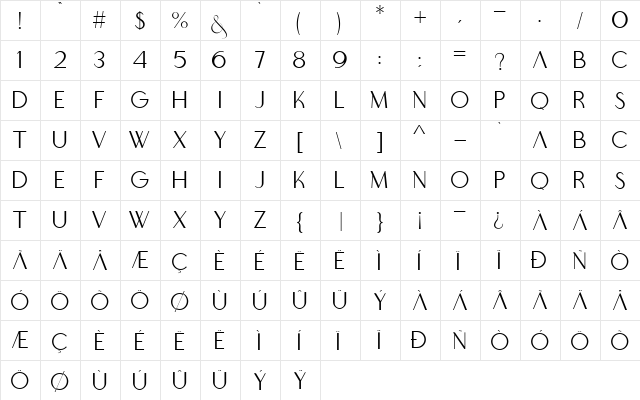
BOOWIE Regular
Design Context for BOOWIE Typeface
BOOWIE takes a measured approach to typography — its balanced proportions and neutral character make it a reliable workhorse for both digital and print work.